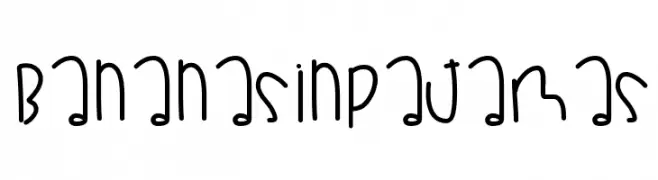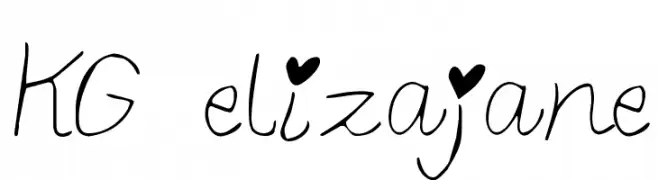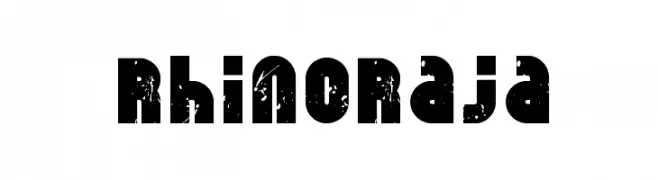
A bold, distressed font with a rugged, industrial style.
An elegant script font with flowing, cursive letterforms and intricate flourishes.
A playful, handwritten-style font with rounded, flowing letterforms.
Hand-drawn flower illustrations form each character in a playful, decorative style.
A playful, handwritten font with a casual and friendly style.
A playful, handwritten font with whimsical elements and decorative characters.
A classic serif font with bold strokes and high contrast, exuding elegance and tradition.
A modern sans-serif font with clean lines and uniform stroke widths.
A sleek, modern font with clean, geometric lines and high contrast.